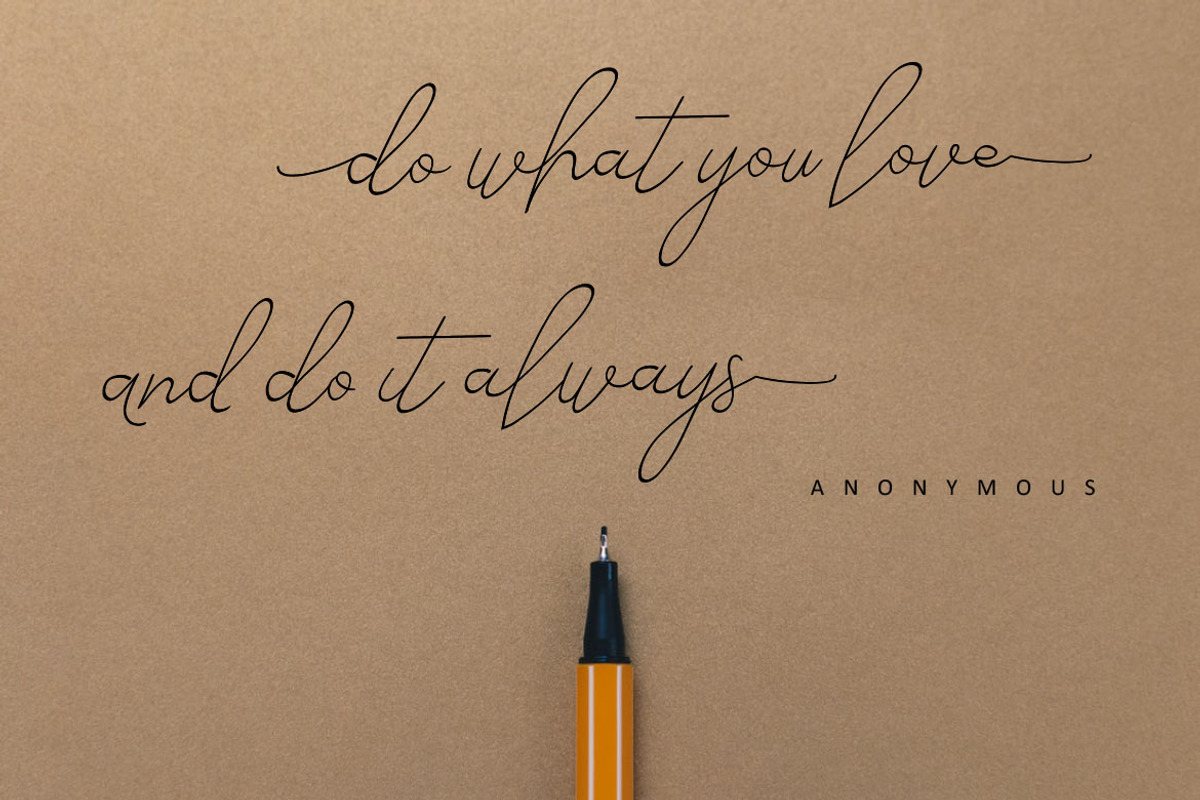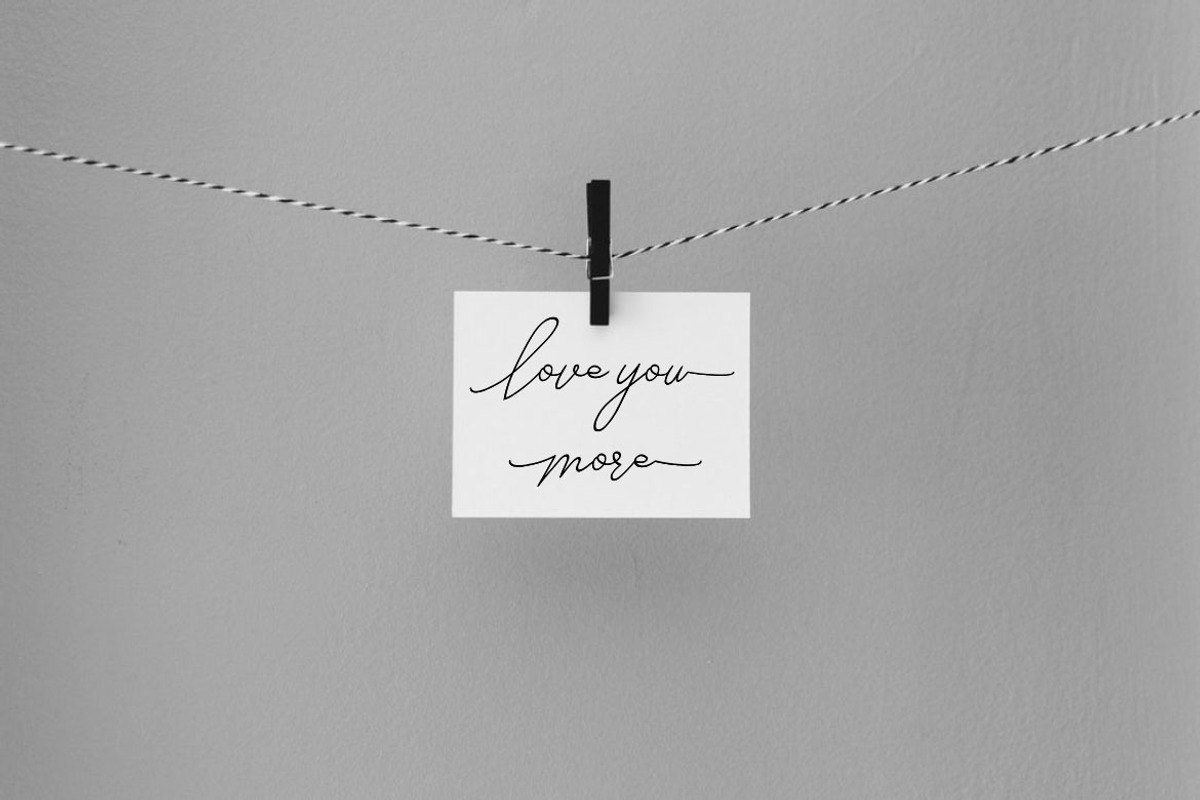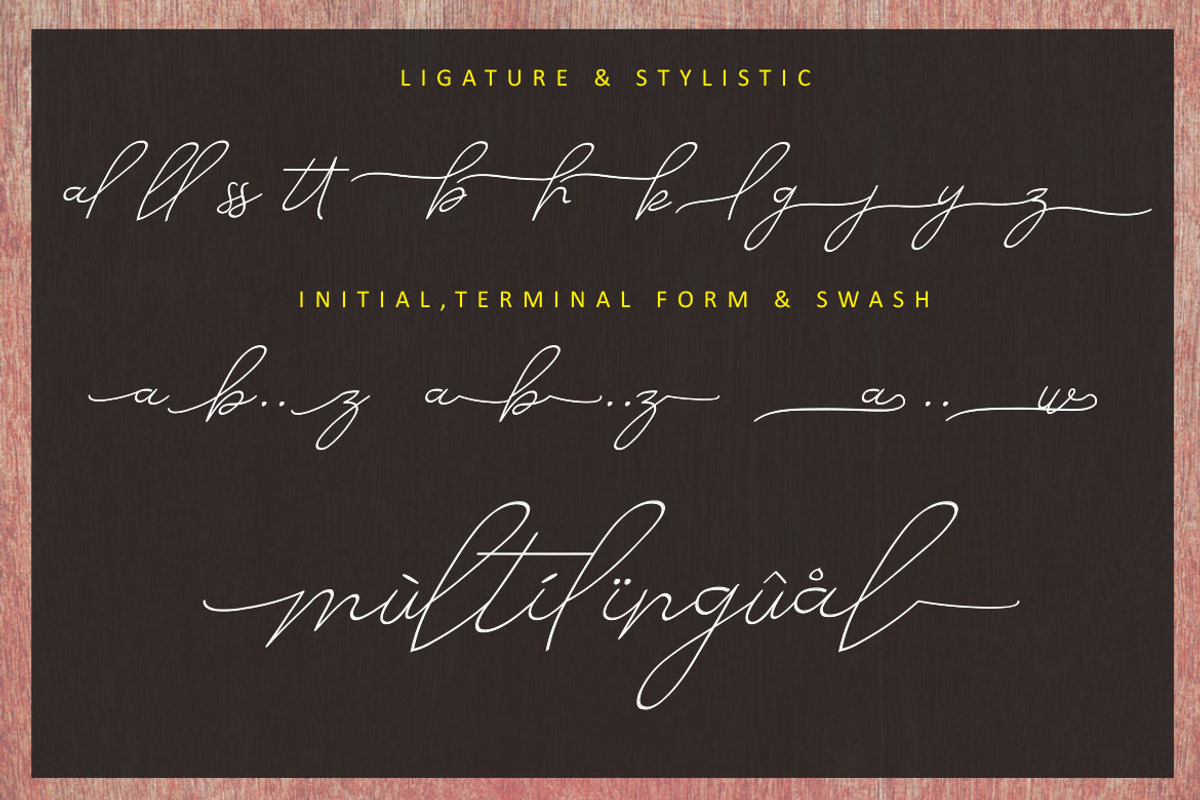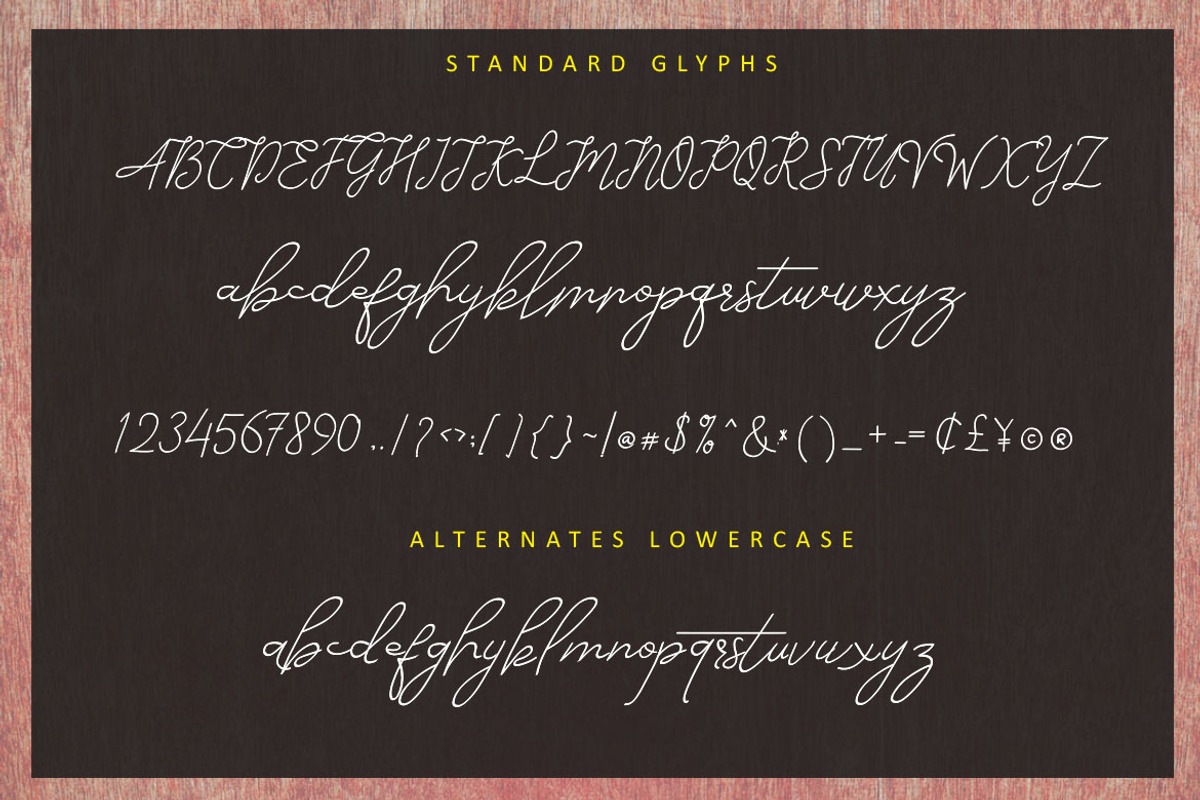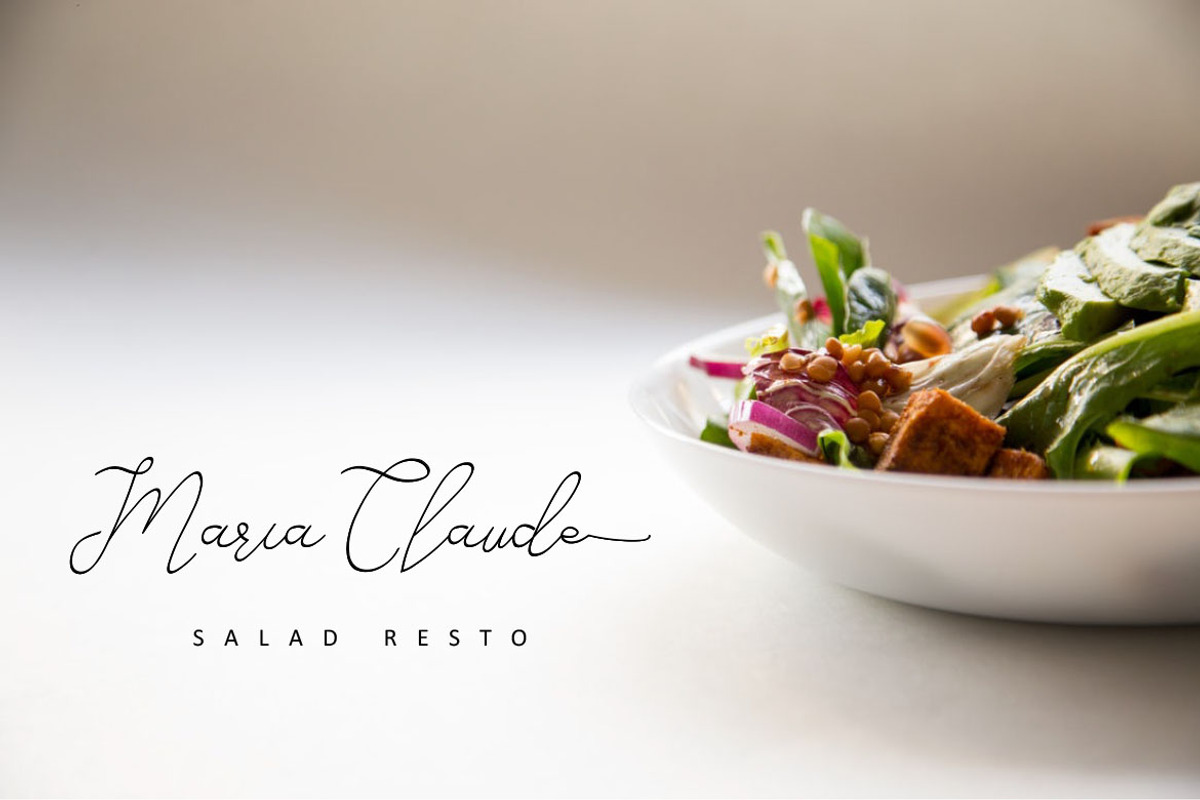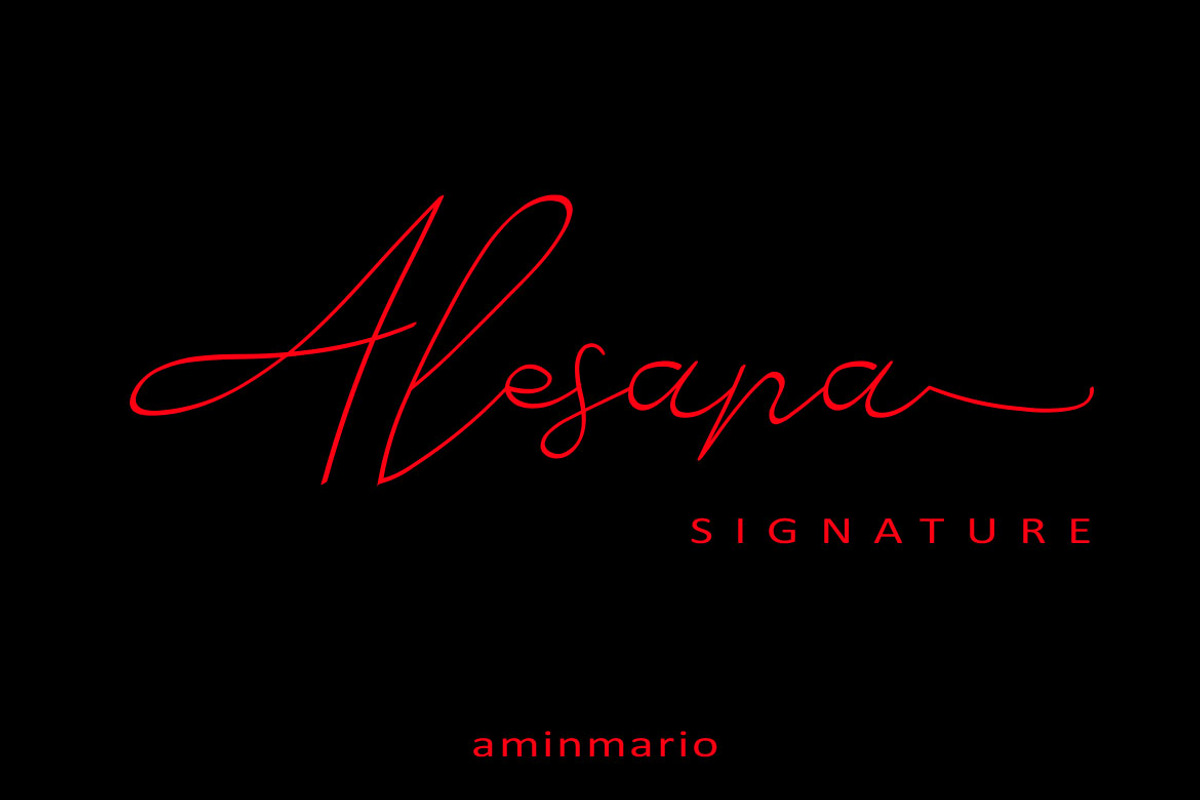
Alesana Signature
We introduce our new product called ALESANA SIGNATURE.
Alesana Signature is a new modern and fresh script with a stylish handwritten , script style make this font looks natural, classy and perfect for any awesome project that need hand writing taste.
This is suitable for logos, watermarks on photography, signatures, branding, advertisement, quotes, invitations, stationery, wedding design,album covers, business cards, clothing, magazines, posters, and more!
As usual ,the font comes with many opentype features such as ligatures, stylistic set alternates, etc and also support multilingual. You can access all those alternate characters by using Opentype or Glyph program such as Adobe Illustrator cs,Adobe Photosop cc, Adobe InDesign, etc.